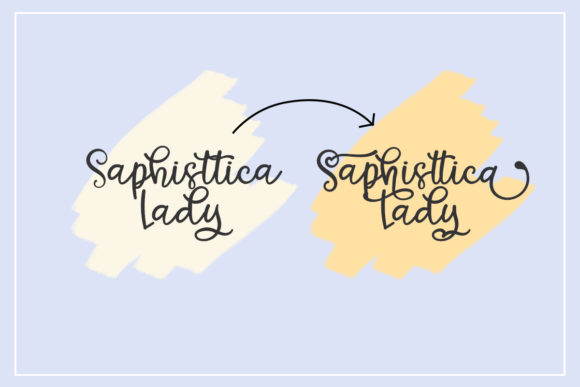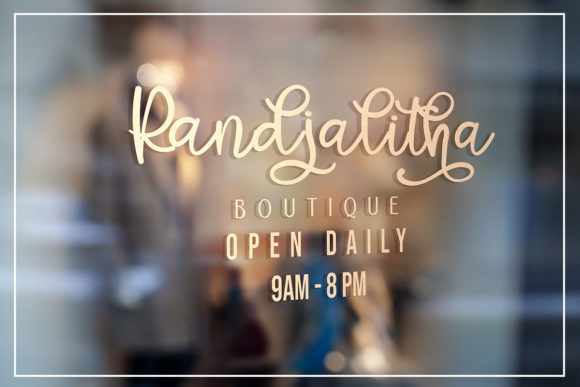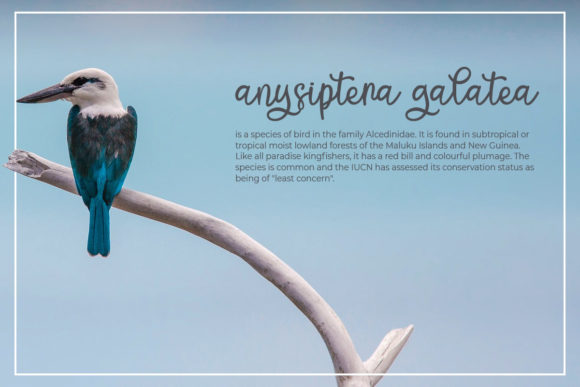
Introduction to Cantica Script Font
Remember that moment when you finally find the perfect font to elevate your design project? The one that makes your creative vision come alive and leaves a lasting impression? For designers, finding the right font can be a game-changer, and that’s exactly what the Cantica Script Font offers.
With its chic, refined script style, Cantica Script Font is the epitome of sophistication and elegance. Whether you’re working on a high-end branding project or a romantic wedding invitation, this font is sure to add a touch of class and refinement. Its stylish alternates and ligatures make it a valuable design resource for any creative project, allowing you to experiment with different looks and feels.
And the best part? Cantica Script Font is PUA encoded, making it easy to access all of its glyphs and swashes, even when using a transparent background. This means you can focus on bringing your design to life without worrying about the technicalities.
Key Features of Cantica Script Font
- High-quality, elegant script font perfect for creative projects and design resources.
- Designed to be versatile, suitable for a wide range of creative projects, including invitations, logos, and typography-based designs.
- Includes a large character set, making it ideal for multilingual projects and designs that require a lot of text.
Honest Review: Cantica Script Font
I recently stumbled upon the Cantica Script Font while searching for a unique design resource for a creative project. I was blown away by its elegant and refined feel, making it a perfect fit for my design needs. ✨
The Cantica Script Font boasts a beautiful, hand-painted look that adds a touch of sophistication to any design. Its high-quality design ensures that it looks stunning on both light and dark backgrounds, including transparent backgrounds.
Here are some of the key features that make the Cantica Script Font stand out:
- High-quality design that looks stunning on various backgrounds
- Perfect for creative projects that require a touch of elegance
However, I did encounter some limitations while using the Cantica Script Font. ⚠️
- The font may not be suitable for projects that require a bold, attention-grabbing look
- The font’s readability may be affected on very small font sizes
Overall, I’m thoroughly impressed with the Cantica Script Font. Its unique design and high-quality feel make it a valuable addition to any designer’s toolkit. If you’re looking for a stylish and elegant font for your next creative project, I highly recommend giving it a try.
Tips for Getting the Most Out of Cantica Script Font
For the best results, use Cantica Script Font in a creative project where you want to add a touch of elegance and sophistication. Experiment with different font sizes and colors to create a unique design. You can also use the font in combination with other design resources, such as graphics and textures, to create a high-quality design.
Cantica Script Font is a versatile font that can be used in a variety of design projects, including wedding invitations, birthday cards, and marketing materials. It’s also a great choice for creating a free download of a design, such as a printable art or a digital wallpaper.